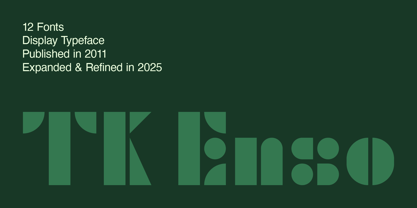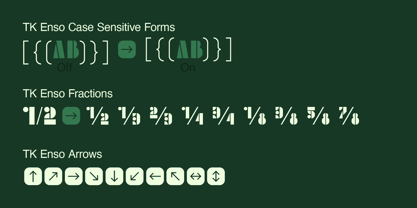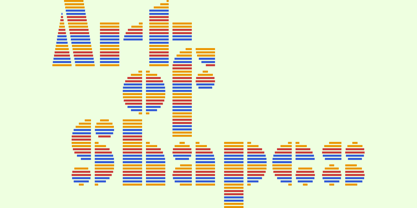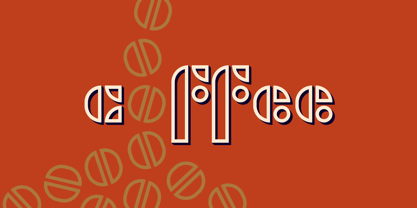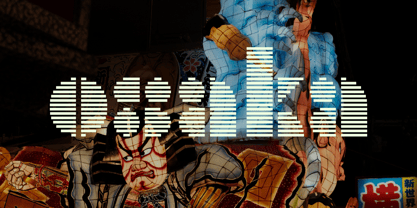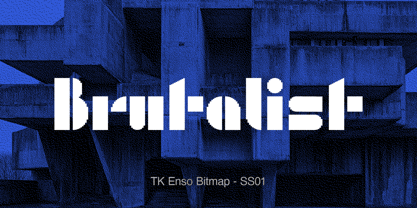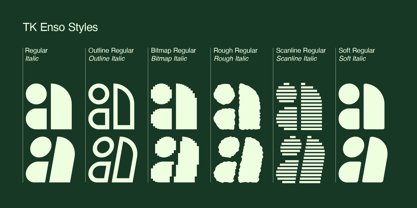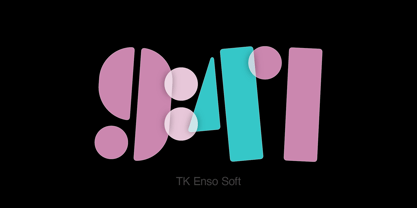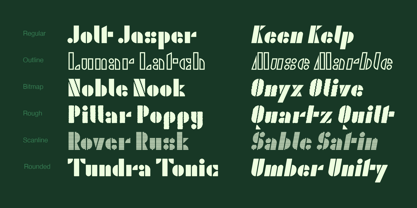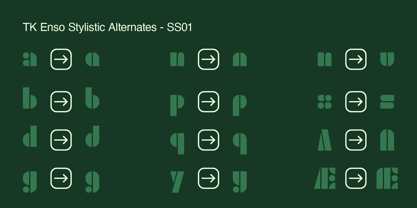
TK Enso
by Tamer Koseli
The TK Enso Font Family was designed by Tamer Köşeli and published by Tamer Koseli. TK Enso contains 12 styles and family package options.
Published in 2011 and fully expanded in 2025, this typeface began as a strict geometric experiment built solely from rectangles and circles. The new release introduces refined angular details to improve legibility—especially in characters like U, V, t, and others—while extending the family to 12 styles and 524 glyphs. With case-sensitive forms, stylistic sets, and a crisp display voice, it’s geometry rethought for modern typography.